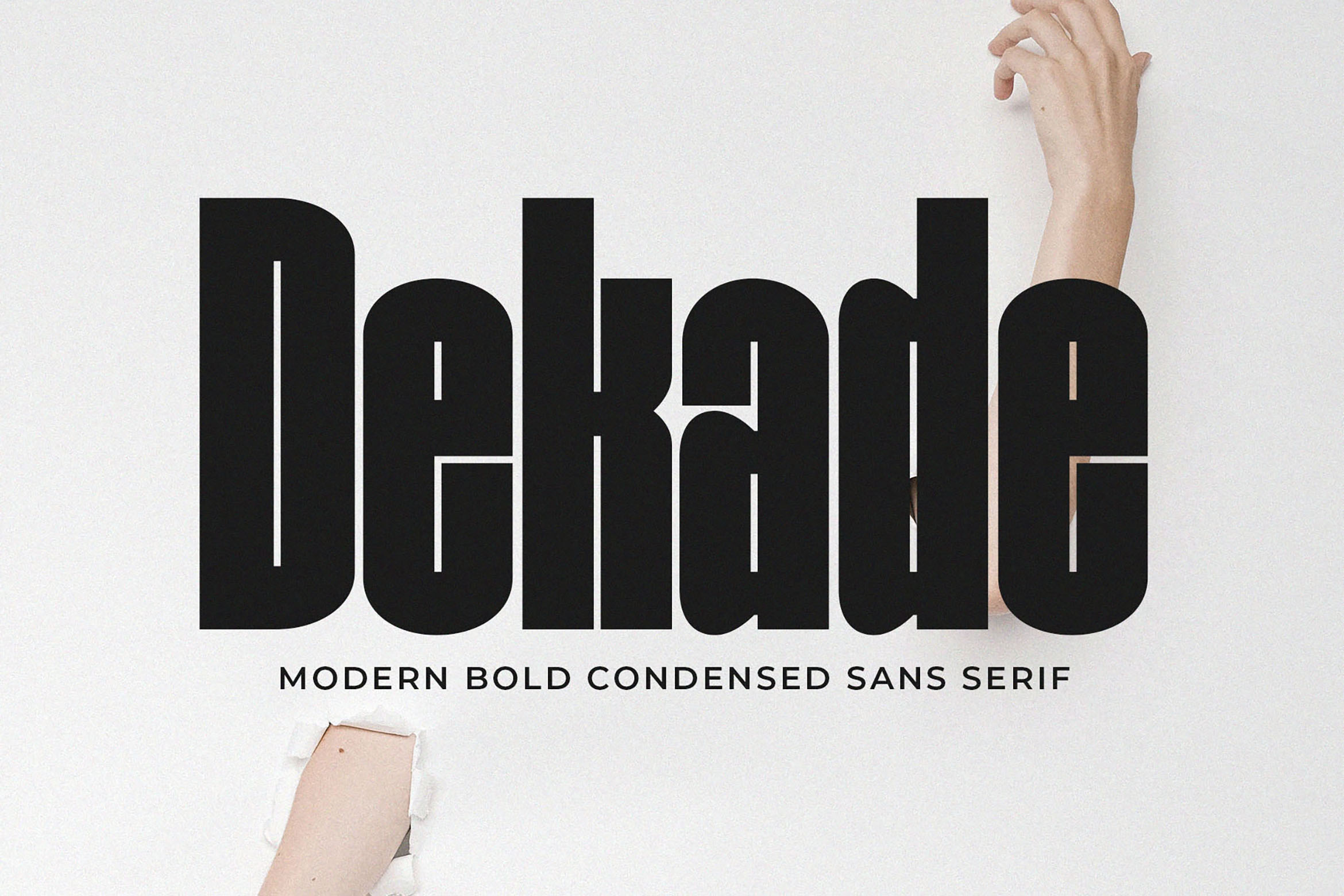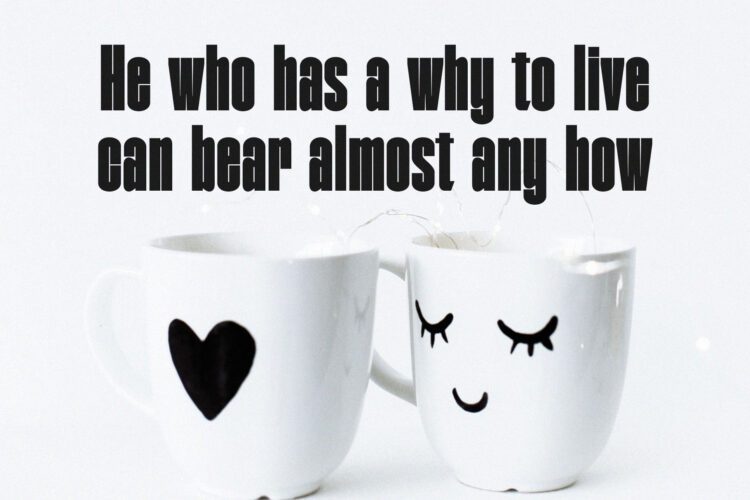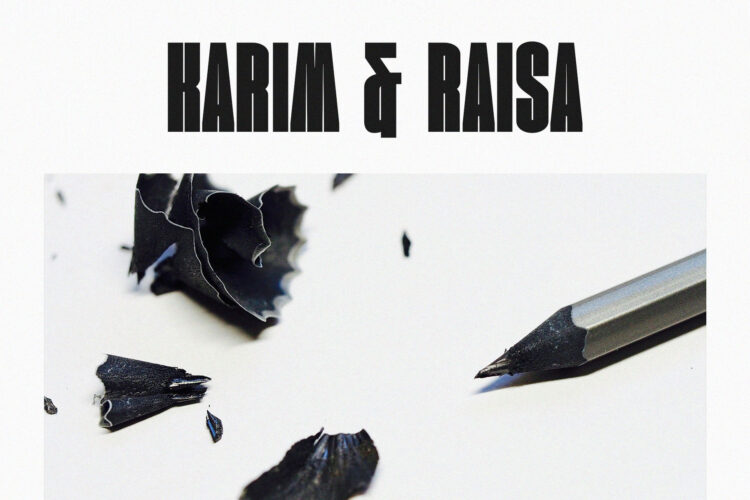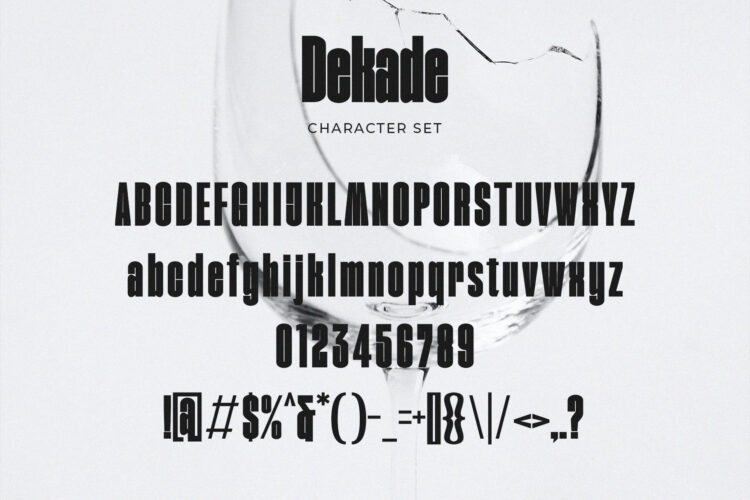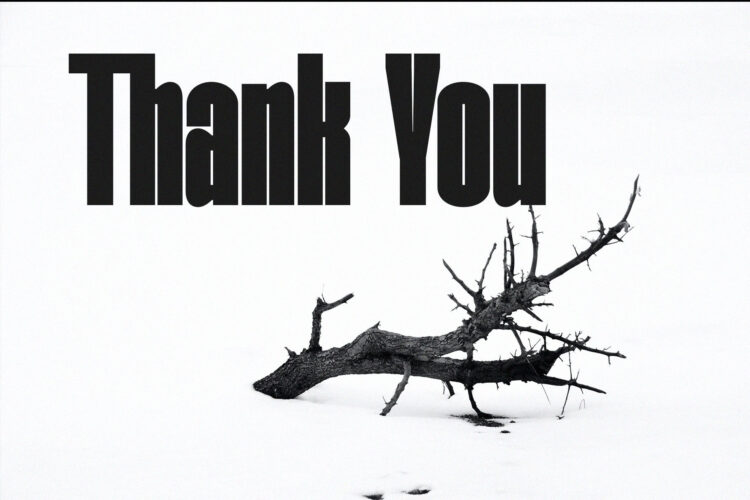
Introducing our new Dekade, modern sans serif font with elegant style this is perfect for branding, logos, invitation, magazines, product packaging and more.
Dekade – Modern Bold Condensed Sans